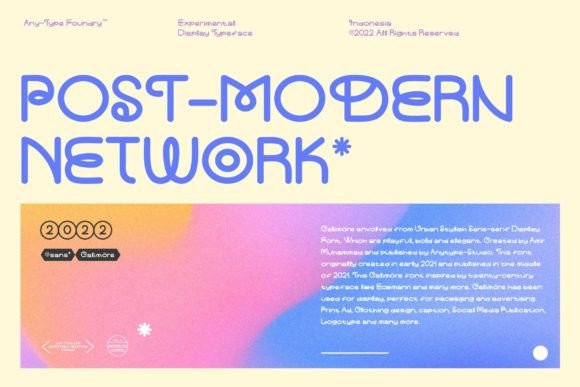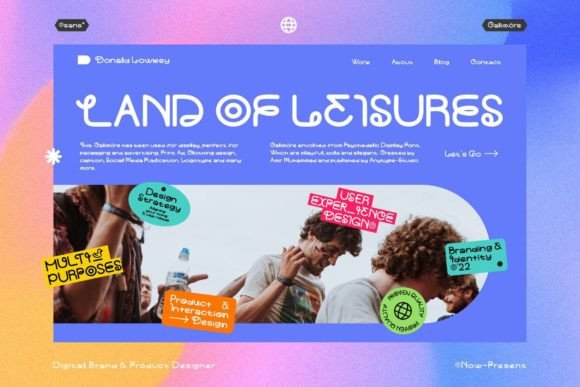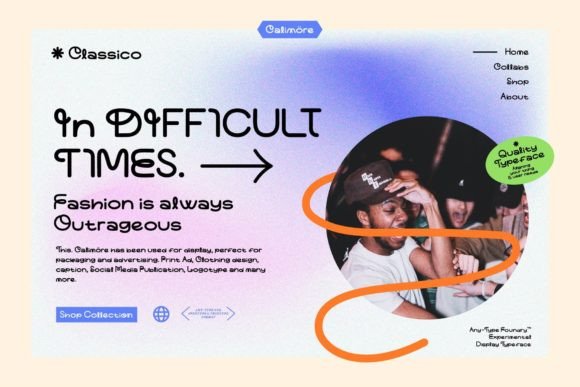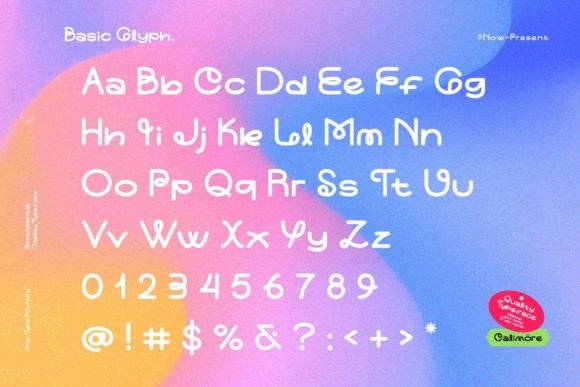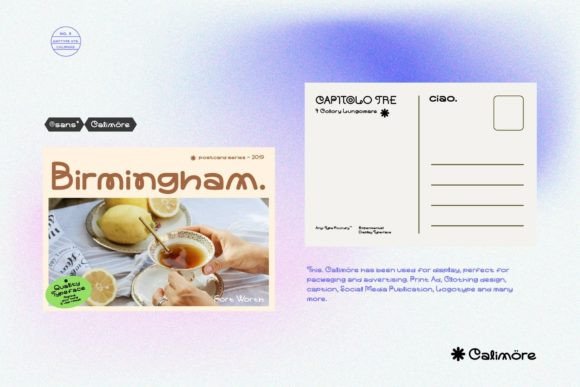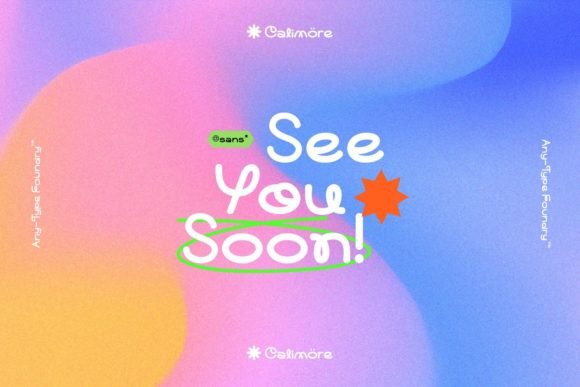
Discover the Perfect Font for Your Next Creative Project
Do you ever get that feeling when you stumble upon the perfect font for your next project? You know, that moment when everything just clicks into place and you can’t wait to get started? That’s exactly what happened to us when we discovered the Calimöre Font. This fun and playful sans serif font is the perfect addition to any creative endeavor, whether you’re making crafts, designing digital projects, or creating presentations.
What sets the Calimöre Font apart is its versatility and charm. Its clean lines and friendly feel make it an ideal choice for a wide range of applications, from greeting cards to business presentations. As a designer, you’ll appreciate the Calimöre Font’s unique ability to add a touch of personality to your work, making it stand out from the crowd. With its endless possibilities, the Calimöre Font is sure to become your new favorite go-to font.
Calimöre Font Key Features
- Font Family: Calimöre is a sans-serif font family.
- Size: The font family includes multiple weights, ranging from Extra Light to Extra Bold.
- Resolution: Optimized for high-resolution displays (Retina and 4K) at 300 DPI.
- Unique Characteristics: Calimöre features a clean and modern design, with a subtle rounded edge and a wide range of language support.
- Language Support: Supports over 200 languages, making it a versatile choice for multilingual designs.
Calimöre Font Review
First of all, I want to say that I love the unique, cursive feel of the Calimöre font ✨. It’s perfect for adding a touch of elegance and sophistication to any design project. The flowing lines and subtle flourishes make it a great choice for titles, headings, and other prominent text elements.
The font is also highly customizable, with a range of weights and styles to choose from ✨. This means you can easily adjust the font to suit your design needs, from light and airy to bold and dramatic.
What I Like:
- Unique, cursive design ✨
- Highly customizable with multiple weights and styles ✨
- Perfect for adding elegance and sophistication to designs
What I Don’t Like:
- May be difficult to read at very small font sizes ⚠️
- Not suitable for body text or large blocks of text ⚠️
- Limited language support
Overall, I think the Calimöre font is a great addition to any designer’s toolkit. While it may have some limitations, its unique design and customization options make it a versatile and powerful tool for adding style and sophistication to your designs.
Calimöre Font is ideal for creative projects, such as graphic design, branding, and typography. It’s also suitable for use in headings, titles, and quotes.
Alternatives to Calimöre Font for Designers
The Great Vibes Font is a modern, elegant script font perfect for creating a sophisticated and professional look. It’s ideal for use in headings, titles, and other display text where a touch of elegance is required. Compared to Calimöre Font, Great Vibes Font has a more refined and polished appearance, making it suitable for high-end designs.
The Carolyna Pro Font is a luxurious, high-end script font designed for use in luxury brands, fashion, and high-end publications. It’s perfect for creating a sense of opulence and sophistication. Compared to Calimöre Font, Carolyna Pro Font has a more elaborate and ornate appearance, making it suitable for designs that require a touch of luxury.
The Alex Brush Font is a beautiful, elegant script font perfect for creating a warm and inviting atmosphere. It’s ideal for use in headings, titles, and other display text where a touch of personality is required. Compared to Calimöre Font, Alex Brush Font has a more relaxed and casual appearance, making it suitable for designs that require a touch of warmth.
The Dancing Script Font is a lively, energetic script font perfect for creating a fun and playful atmosphere. It’s ideal for use in headings, titles, and other display text where a touch of whimsy is required. Compared to Calimöre Font, Dancing Script Font has a more dynamic and expressive appearance, making it suitable for designs that require a touch of excitement.